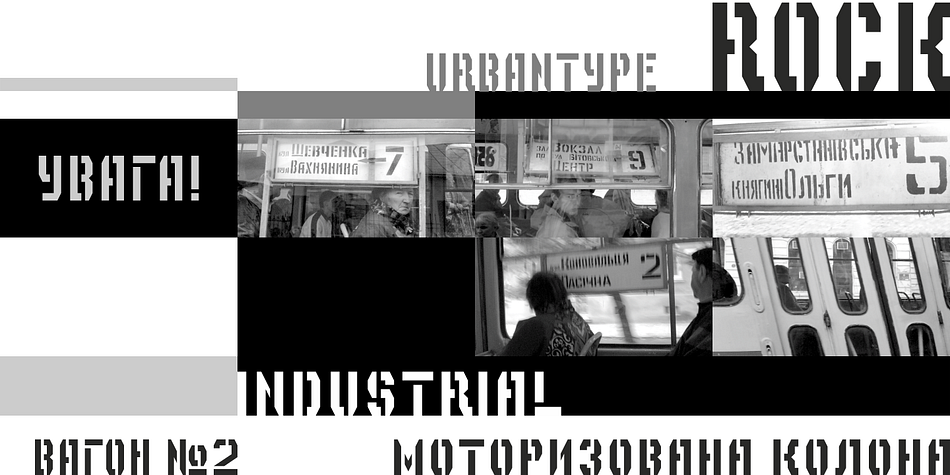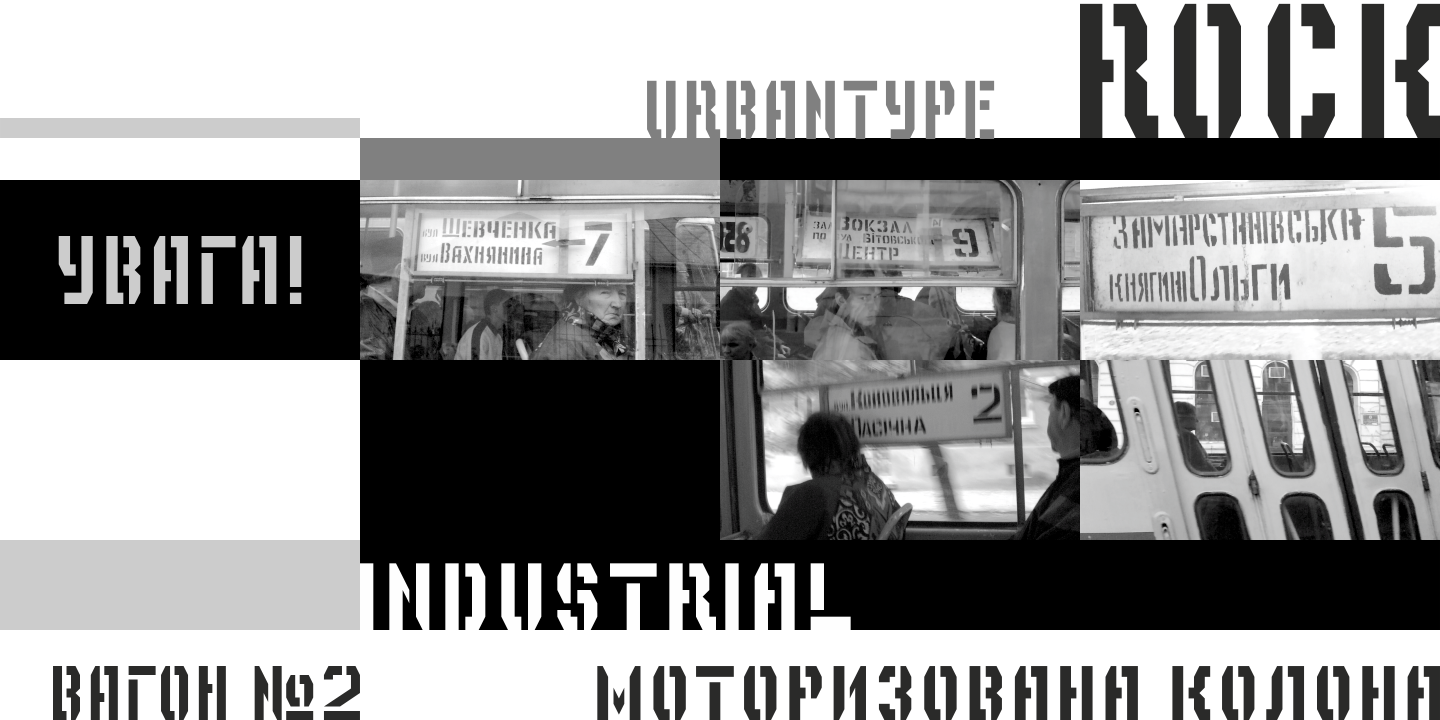
Depot Trapharet 2D is a stencil font published by 2D Typo.
The Depot Trapharet 2D is based on lettering of Lviv tram stands describing the city tram routes.
The font is characterized by brutal simplicity bordering with primitivity.